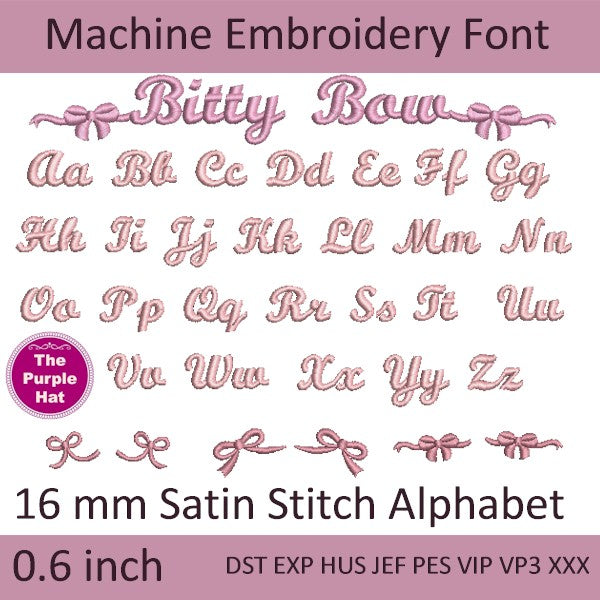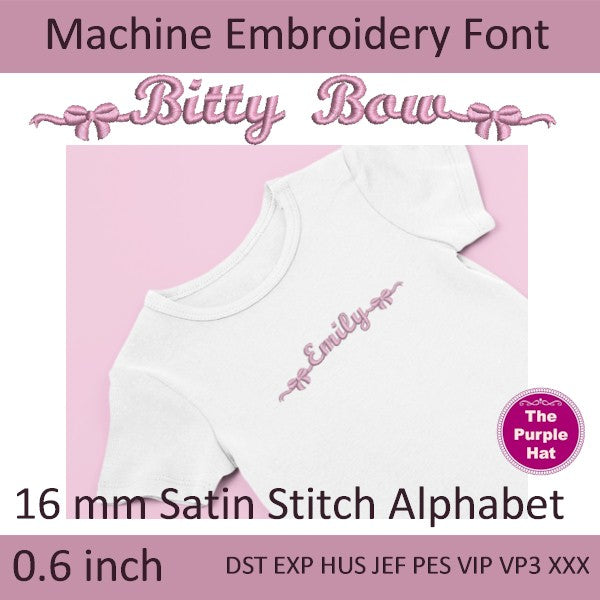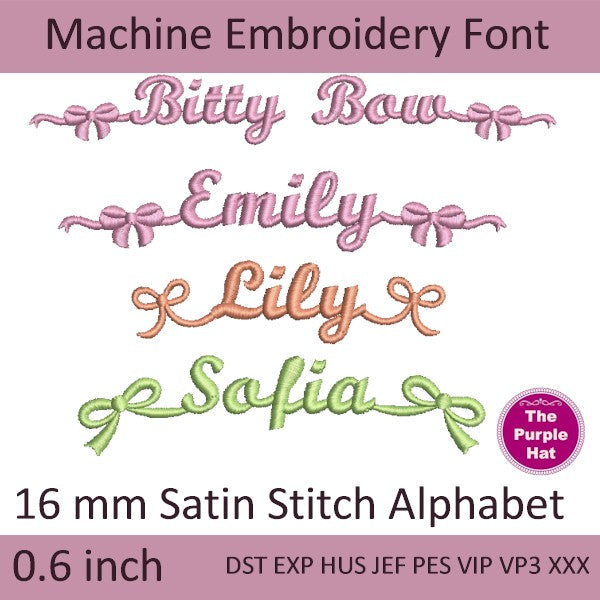
Bitty Bow satin stitch machine embroidery font 16 mm or 0.6 inches
Add a touch of sweetness to your embroidery projects with the Bitty Bow Satin Stitch Font! This dainty and elegant font is perfect for monogramming baby items, accessories, clothing labels, and more. With its soft curves and satin stitch finish, Bitty Bow is both charming and easy to stitch out.
๐Ÿงต Name: Bitty Bow
๐Ÿ”  Uppercase Letters: A-Z
๐Ÿ”ข Lowercase: a-z
๐ŸŽ€ 3 different bows, left and right included, to combine with your text
๐Ÿ“ Size: 16mm or 0.6 inches
โœจ Style: Satin stitch